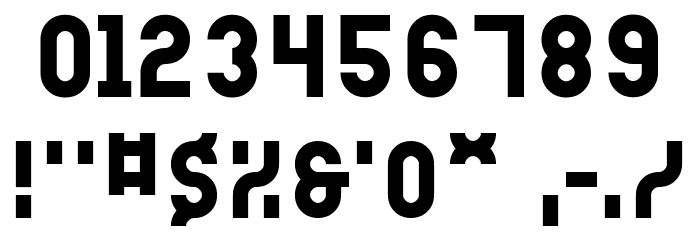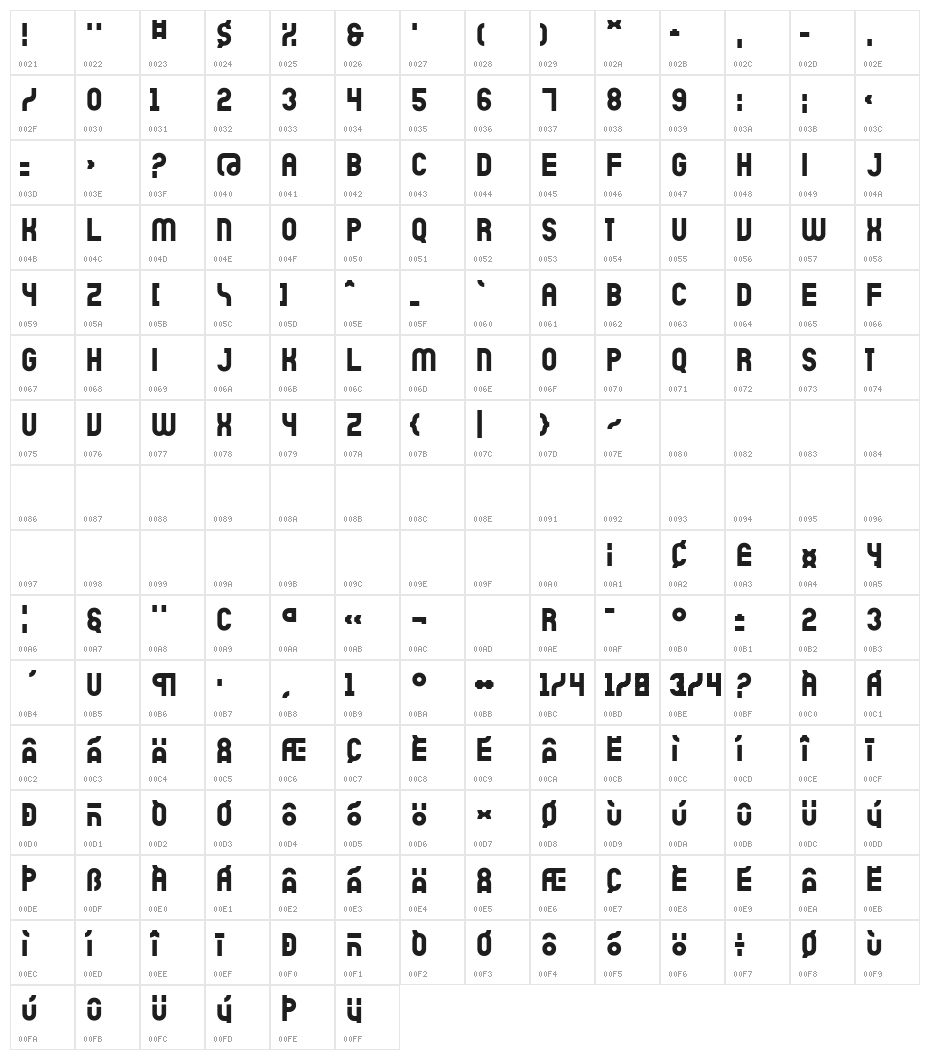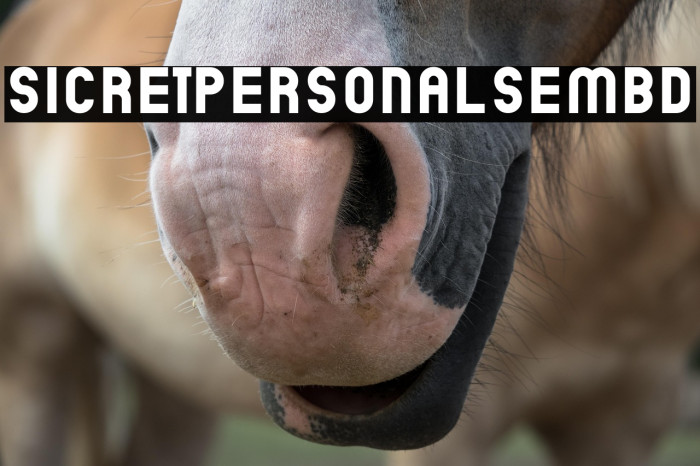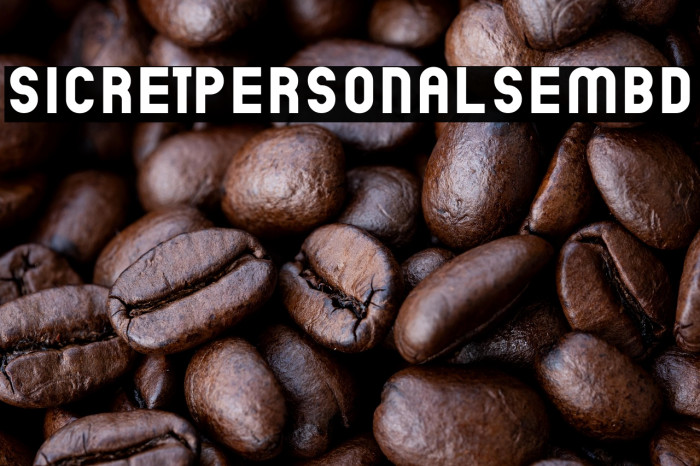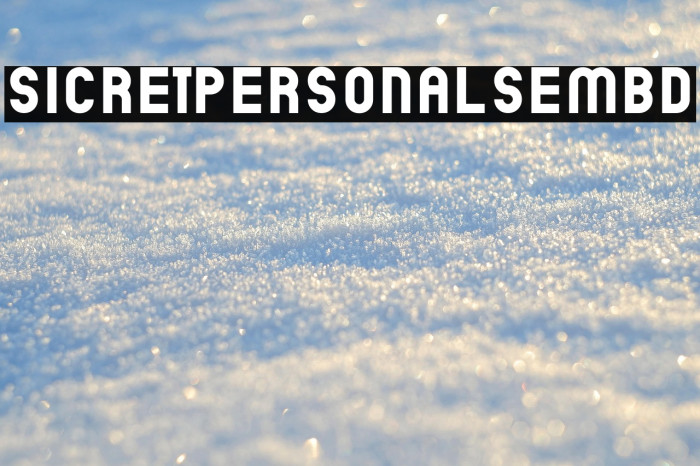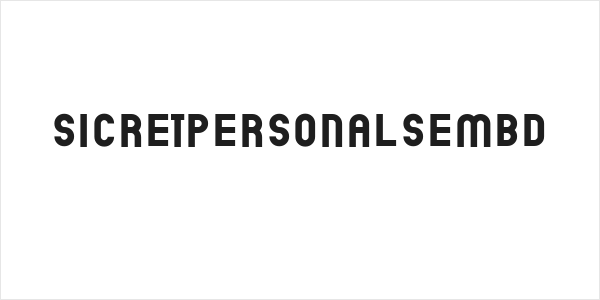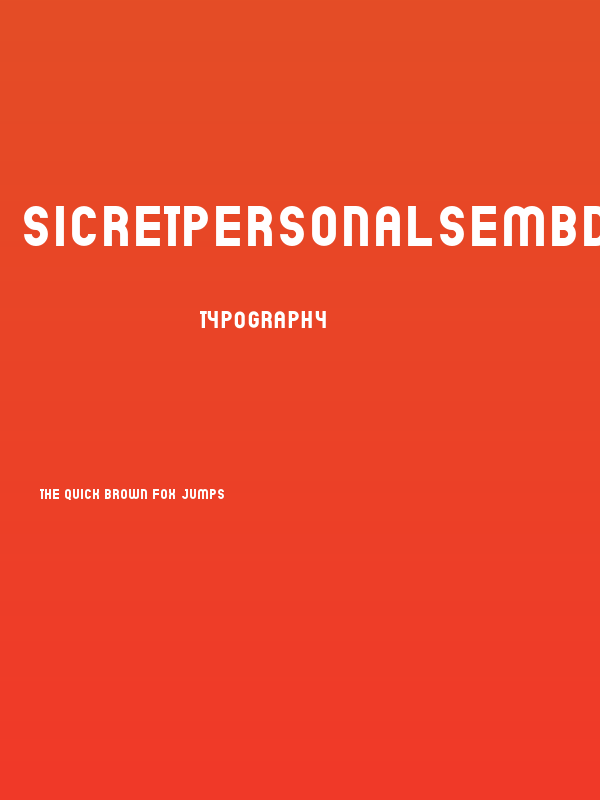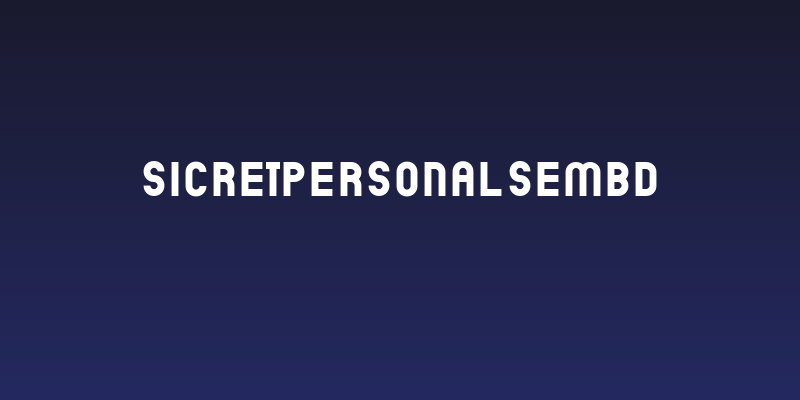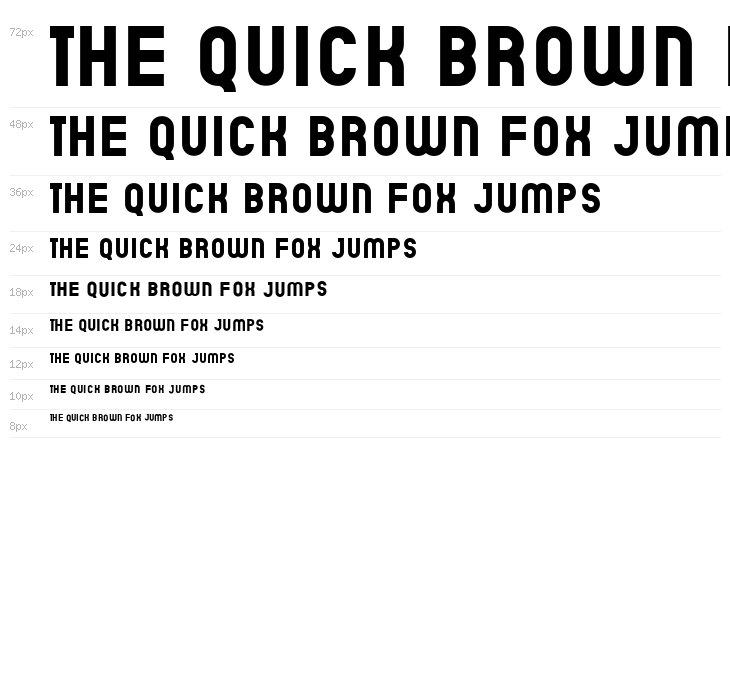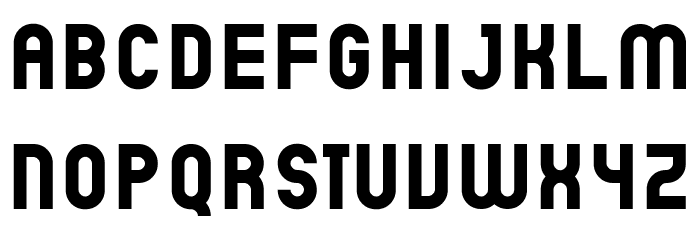
SicretPERSONALSemBd Font
SicretPERSONALSemBd Description
This font features bold, geometric shapes with a modern and industrial aesthetic. The characters are uniform in width, creating a monospaced appearance that enhances readability and structure. The uppercase and lowercase letters maintain a consistent height, while the numerals are clear and distinct. Special characters are designed with the same boldness, ensuring they stand out. The overall style is clean and minimalistic, making it suitable for various design applications where a strong, impactful presence is desired.